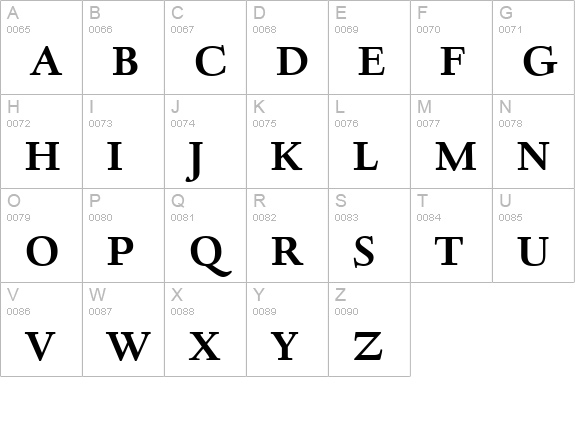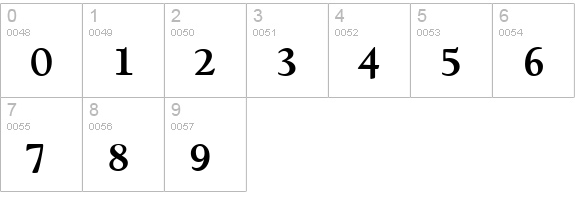
D690-Roman-Bold is a strong, high-contrast variant in the D690 typeface family \xE2\x80\x94 well suited to headlines, attention-grabbing titles, and strong calls-to-action.
The D690-Roman-Bold font is a bold and impactful typeface that commands attention with its strong and confident appearance. Its bold strokes and clean lines make it a versatile choice for a wide range of design projects, from headlines to logos to branding materials. The font exudes a classic elegance that is sure to elevate any design it is used in. What's even better is that the D690-Roman-Bold font is available for free download at FontsMarket.com. This means that you can easily access this high-quality font without any cost, making it a valuable addition to your font collection. Whether you're a designer looking for a reliable typeface or a hobbyist seeking to enhance your projects, the D690-Roman-Bold font is a fantastic choice that won't break the bank. Download it today and see for yourself the impact it can make on your designs!